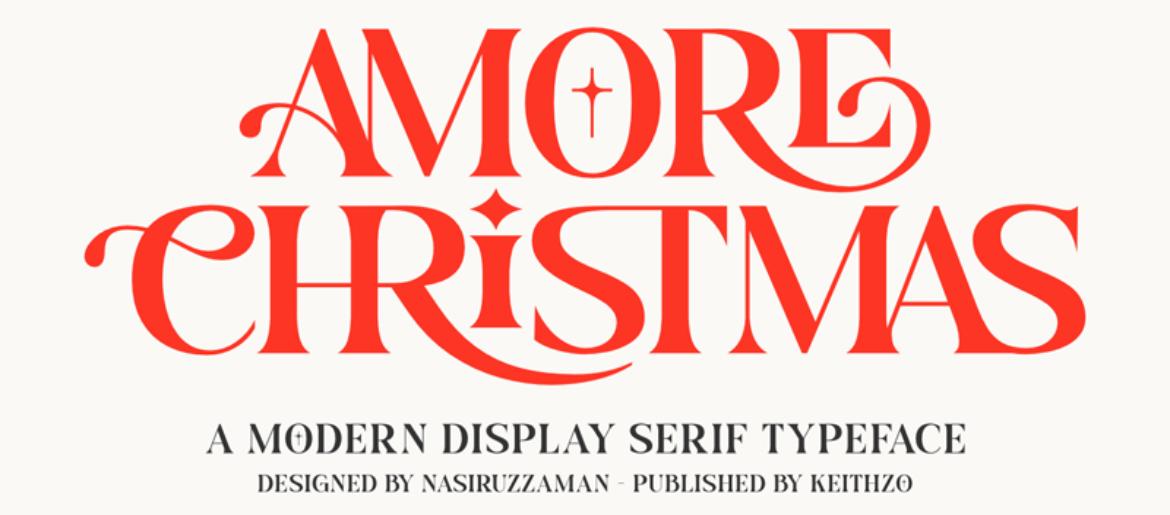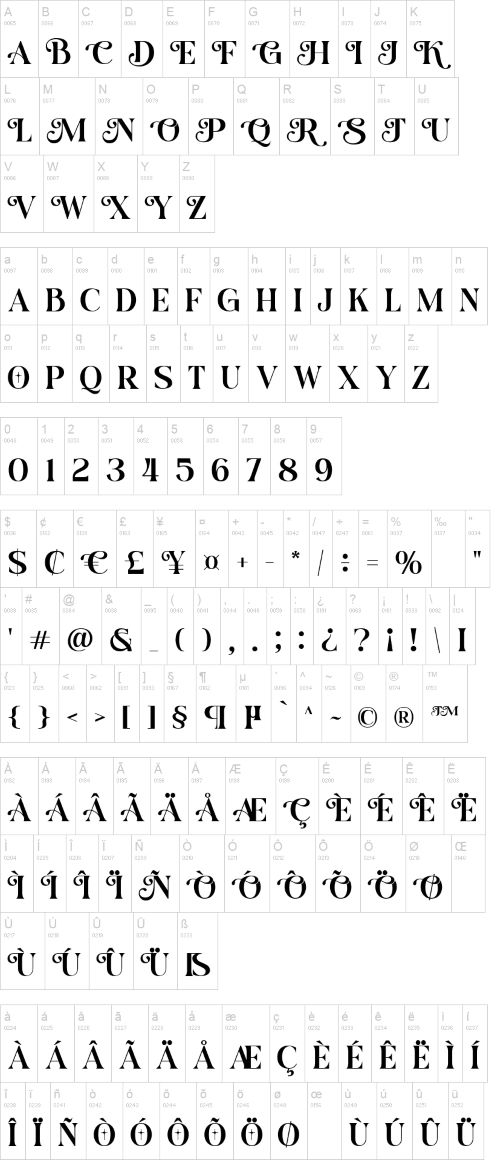
Amore Christmas Font
Amore Christmas Font is a festive, decorative typeface designed to capture the warmth and charm of the holiday season. With elegant curves, playful swashes, and a cozy handwritten feel, it’s perfect for Christmas cards, gift tags, seasonal branding, invitations, and winter-themed designs. It brings joy, warmth, and a celebratory spirit to any project.